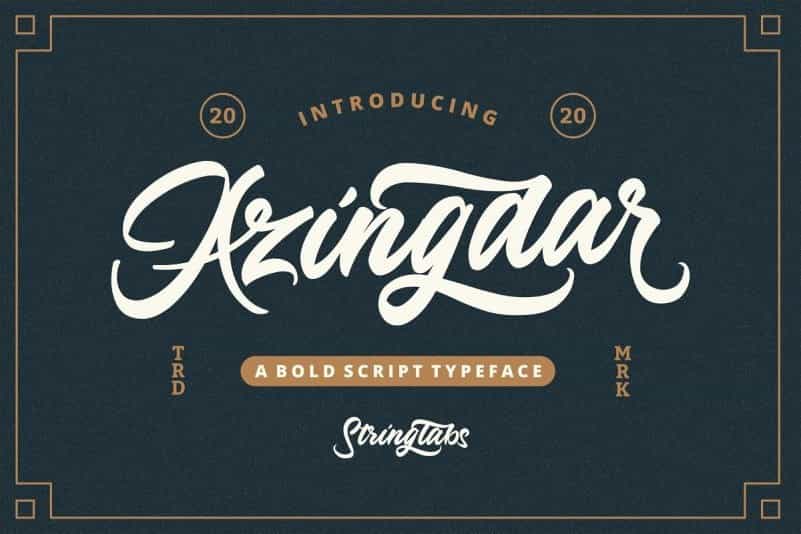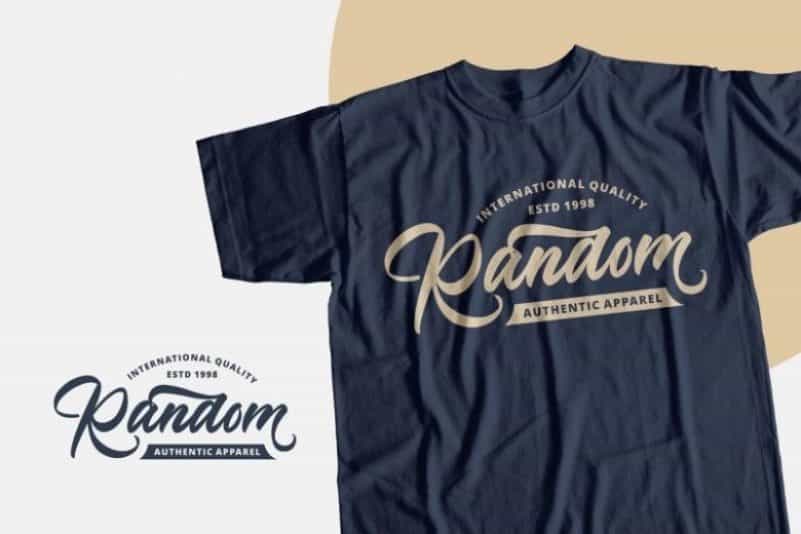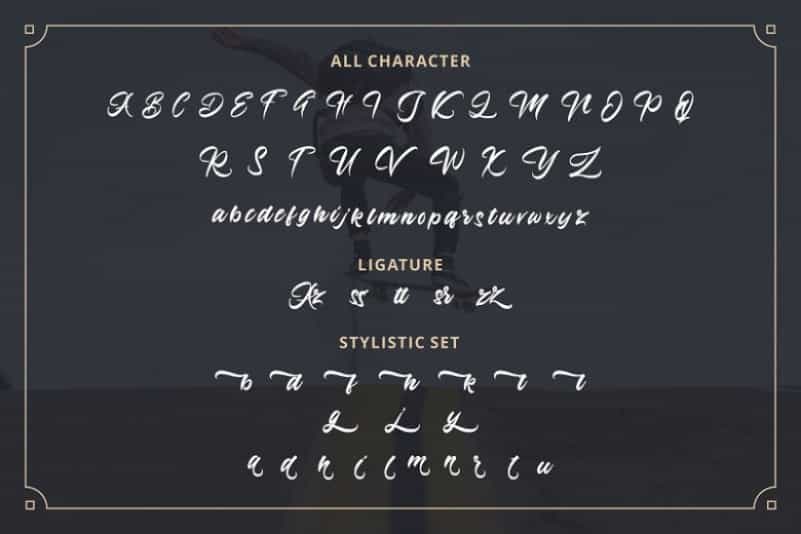
Azingdar is a Retro bold script font with Groovy style, The unique style and classic retro taste of 80s sporty capture the cute vintage trend. Azingdar is perfect for true retro aficionados.